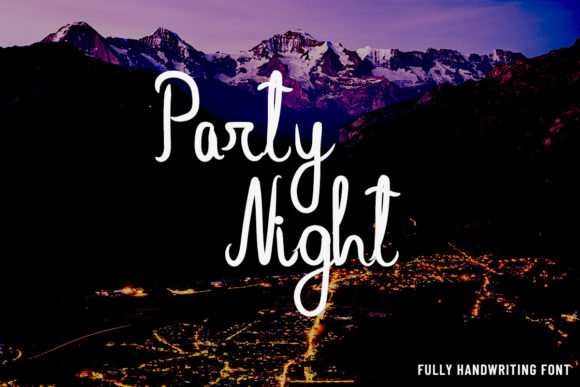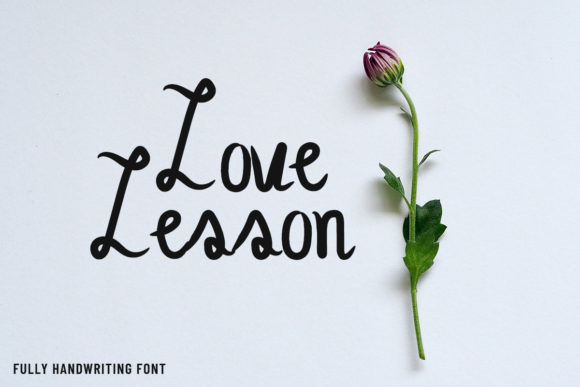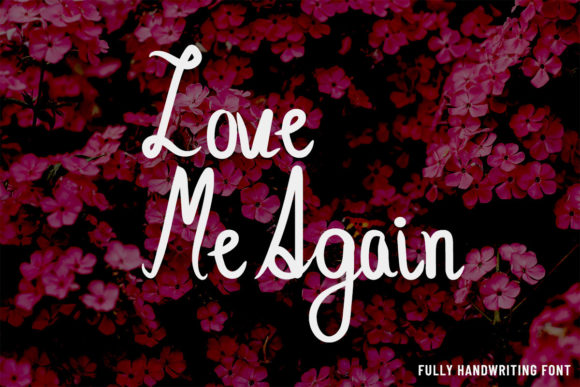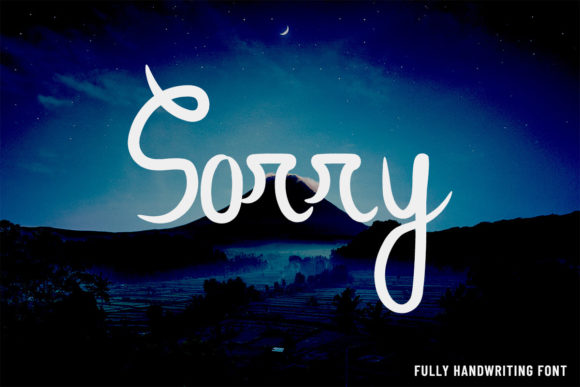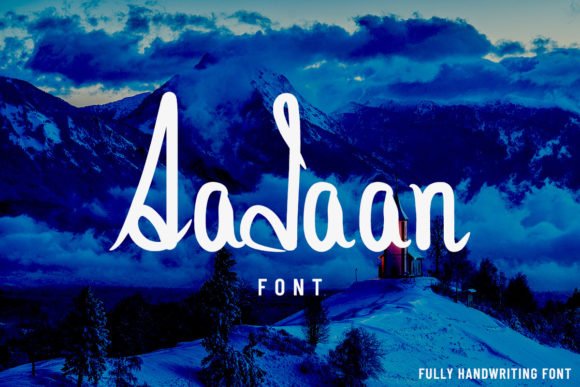
Discover the Timeless Beauty of Aadaan Font
Have you ever found yourself pouring your heart and soul into a design project, only to feel like something’s missing? That’s exactly what happened to me when I stumbled upon the Aadaan Font. Its elegant script and contemporary atmosphere instantly caught my attention, and I knew I had to learn more.
Aadaan Font is a beautifully crafted typeface that brings classic calligraphy into the modern age. Designed to add a touch of sophistication to your projects, this font is perfect for anyone looking to elevate their design game. With its balanced and varied strokes, Aadaan Font is not too thin and not too thick – it’s the perfect middle ground that will enhance the beauty of your work.
Aadaan Font Key Features
- Font Family: Aadaan Font is a unique, modern script font designed to evoke a sense of elegance and sophistication. It is suitable for a wide range of applications, including logos, headings, and body text.
- Character Set: The font includes a comprehensive set of characters, including Latin, Arabic, and other languages, making it a versatile choice for global applications.
- Unique Characteristics: Aadaan Font features a distinctive, flowing design with intricate details and subtle flourishes, making it stand out from more traditional script fonts.
- Font Weight: The font is available in multiple weights, from Light to Bold, allowing designers to create a range of visual effects and emphasis.
Aadaan Font Review
Aadaan Font is an elegant and sophisticated typeface that brings a touch of sophistication to any design project. I’ve had the pleasure of working with this font, and here’s what I think:
- Elegant letterforms: Aadaan Font features beautiful, flowing letterforms that are perfect for creating a luxurious and high-end look.
- Good legibility: The font is highly legible, making it perfect for body text and long passages of text.
- Scalability: Aadaan Font looks great in both small and large sizes, making it a versatile choice for various design projects.
- Limited language support: Aadaan Font may not support all languages, which could be a limitation for designers working on international projects.
- No bold or italic variations: While the font is elegant, it’s a bit lacking in bold and italic variations, which can limit its versatility.
Aadaan Font is a beautiful and elegant typeface that’s perfect for high-end design projects. While it has some limitations, its elegant letterforms and good legibility make it a great choice for designers who want to create a sophisticated look. With some additional language support and bold/italic variations, Aadaan Font could be a top contender in the world of typography.
- Use Aadaan Font for titles and headings to add a touch of elegance and sophistication to your design.